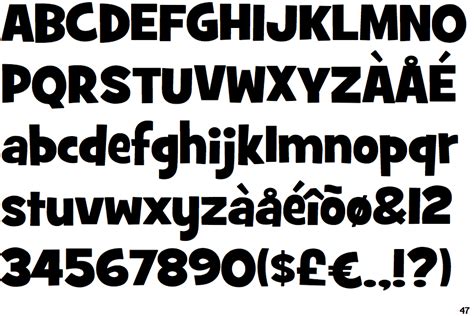
Font Grilled Cheese. 1,482,498 downloads (15 yesterday) 11 comments. Web the font used for the title of the animated series is grilled cheese, which is a playful display type designed by stuart sandler.
Web the font used for the title of the animated series is grilled cheese, which is a playful display type designed by stuart sandler. Discover other fonts in display. 1,482,498 downloads (15 yesterday) 11 comments. Web batman beat the hell outta me by grilled cheese. Added by malika crona (1 style) newly added fonts.
Web batman beat the hell outta me by grilled cheese. Discover other fonts in display. Web batman beat the hell outta me by grilled cheese. 1,482,498 downloads (15 yesterday) 11 comments. Web the font used for the title of the animated series is grilled cheese, which is a playful display type designed by stuart sandler. Added by malika crona (1 style) newly added fonts.